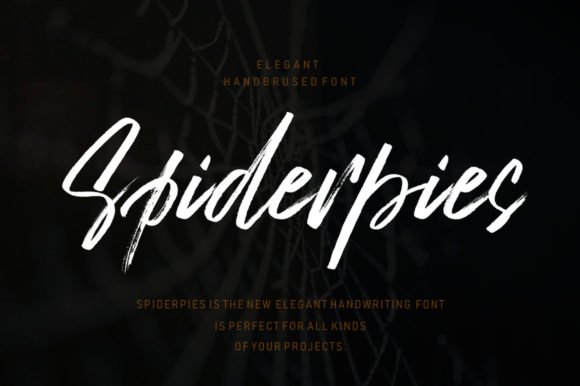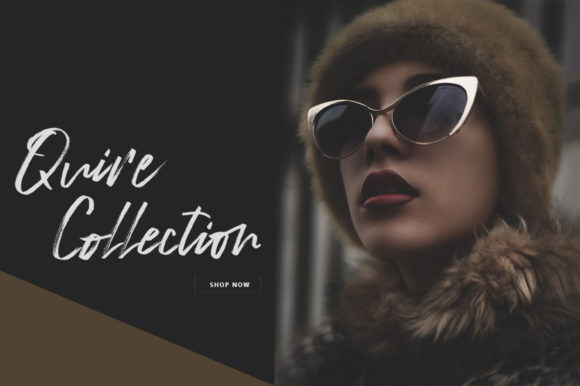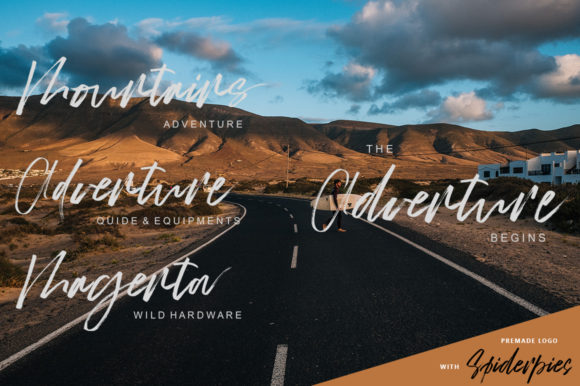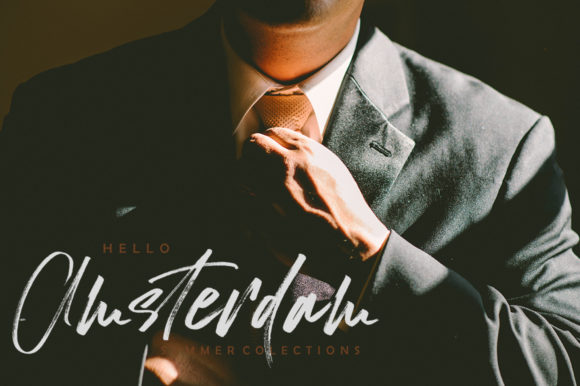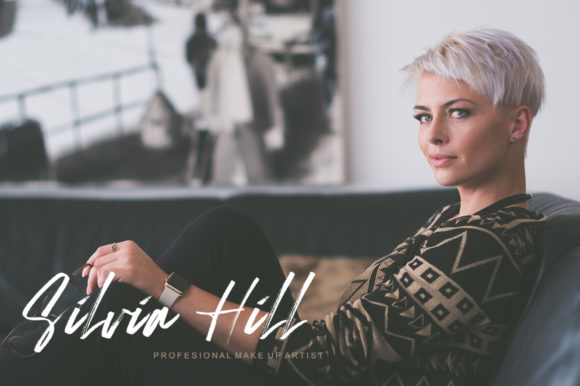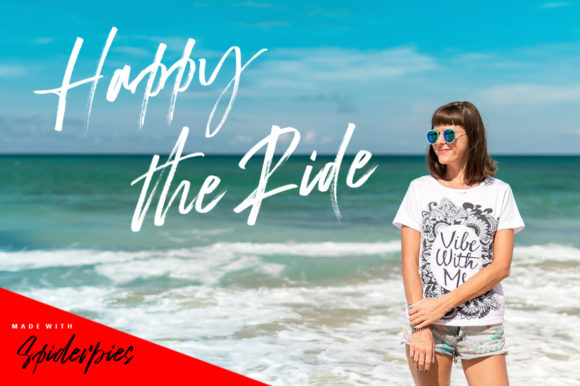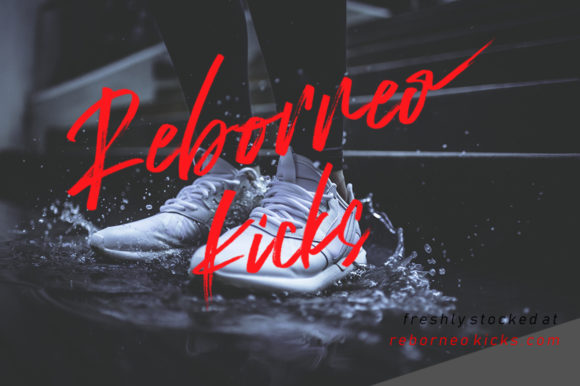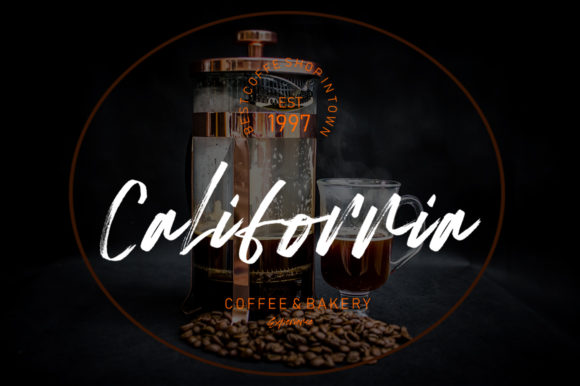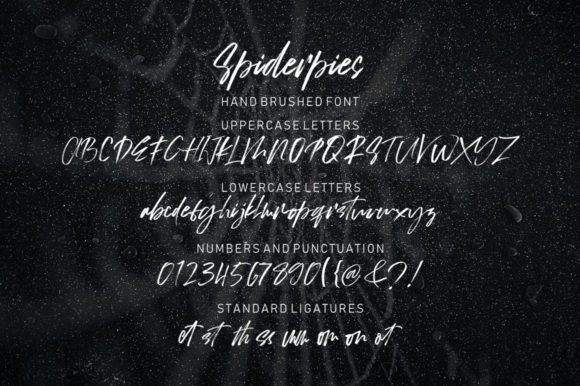
Spiderpies Font
About Spiderpies Font
Spiderpies is an elegant handwritten font with a contemporary touch. It’s effortlessly sophisticated and will add a spark to any creative project.